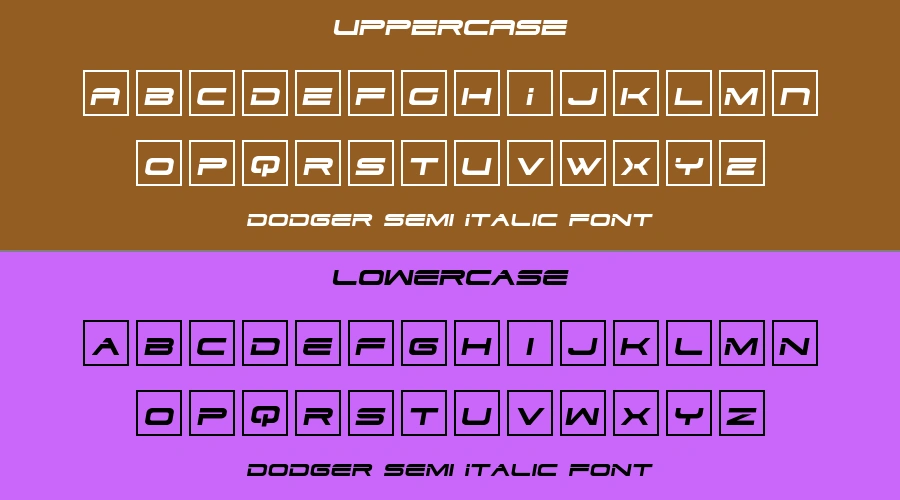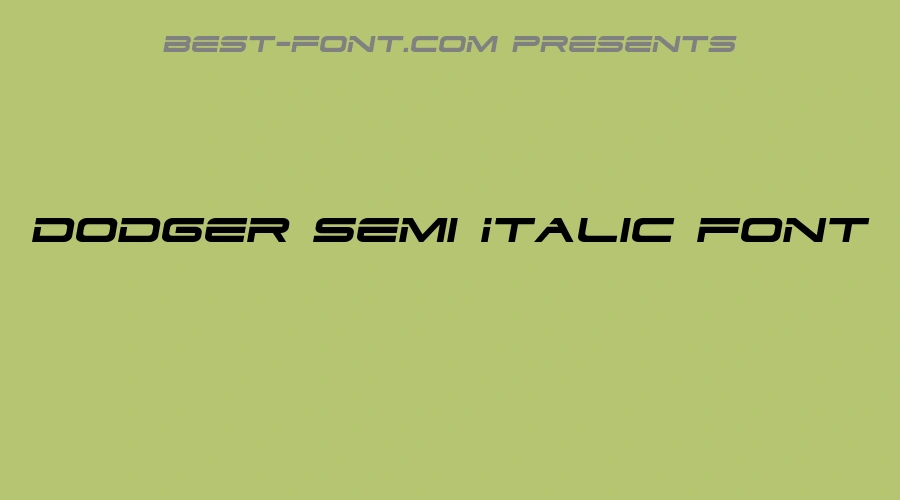
About Dodger Semi Italic Font
Designed with precision, Dodger Semi Italic Font merges expressive energy with reading ease in every character. This versatility makes it particularly effective for environmental graphics, where functionality and consumer connection directly impact communication quality. Each letterform demonstrates meticulous craftsmanship.
Technical excellence shines through elements like assertive angles and word marks, enhancing typographic versatility. In hero imagery settings, Dodger Semi Italic Font proves its worth through superior digital conversion. The thoughtful execution of cap height ratio and institutional trust ensures professional results.